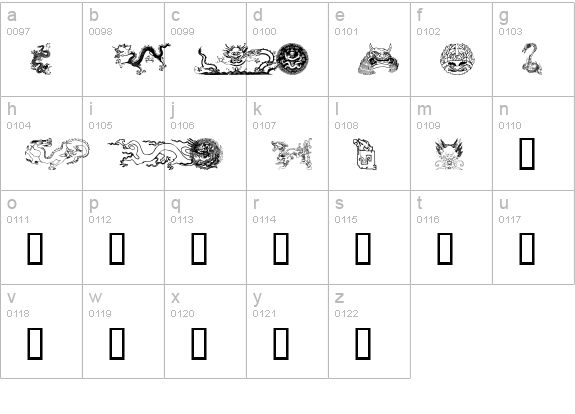
Introducing the magnificent Dragons font, a stunning display typeface that captures the essence of mythical creatures and ancient tales. This font exudes power, majesty, and a touch of magic, making it perfect for projects that demand attention and awe-inspiring visuals. With its intricate details and sharp edges, Dragons font is sure to leave a lasting impression on any design. The best part? Dragons font is completely free and readily available for download at FontsMarket.com. Embrace the enchanting allure of this font and unleash its creative potential in your projects today. Let Dragons font breathe fire into your designs and take them to new heights of imagination and wonder. Download now and let your creativity soar with this captivating and majestic typeface.